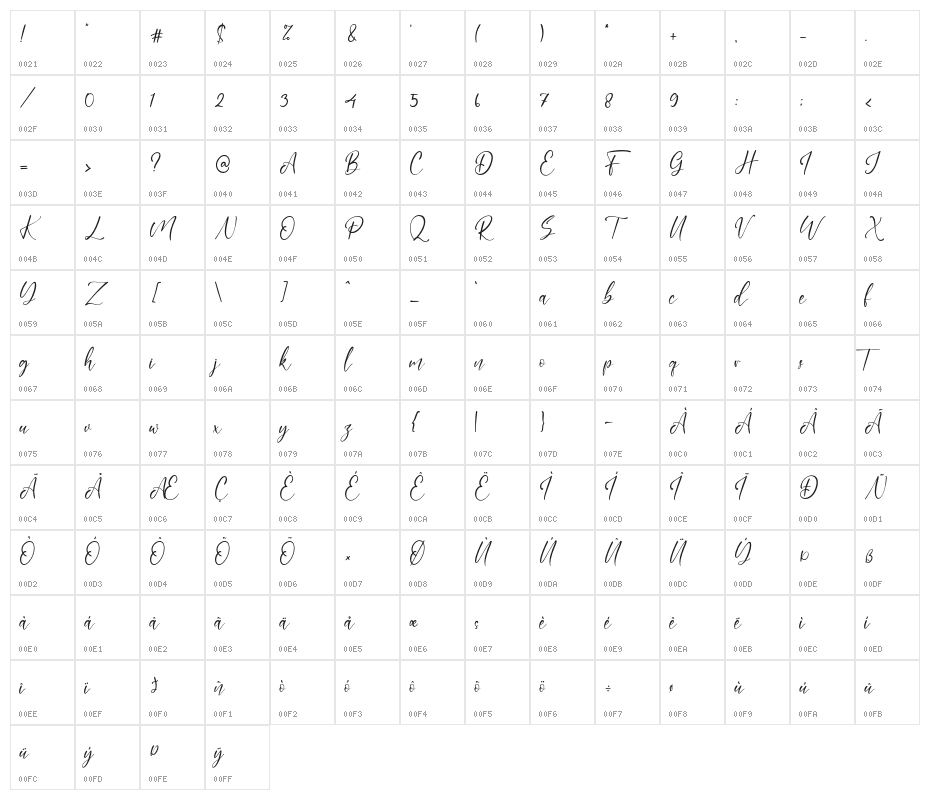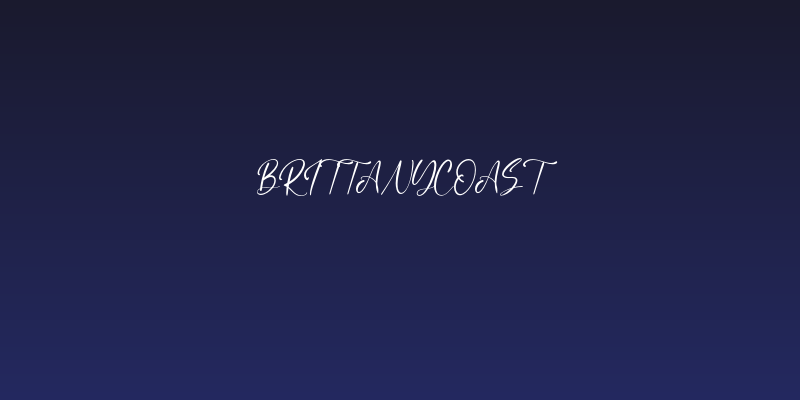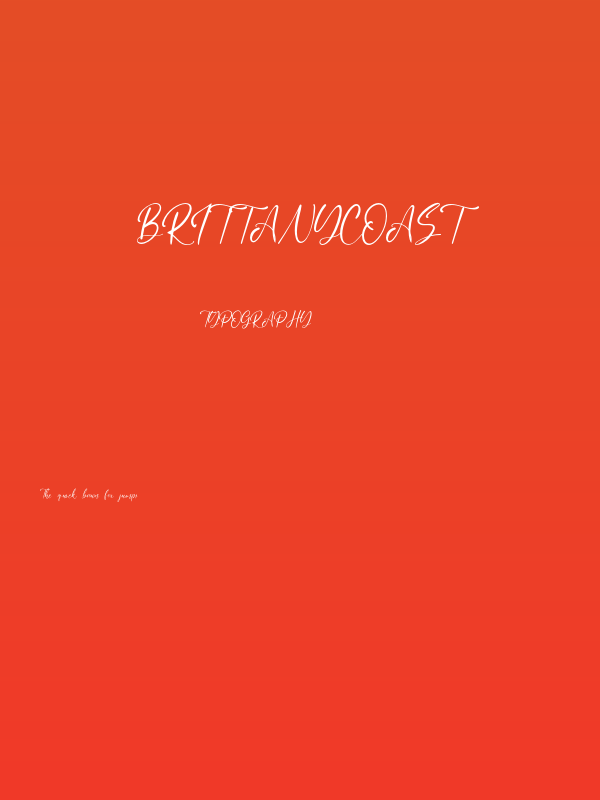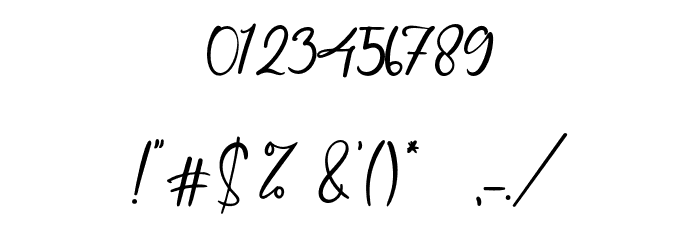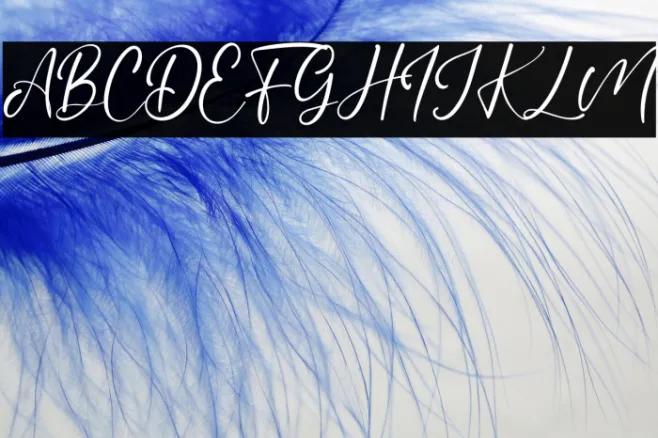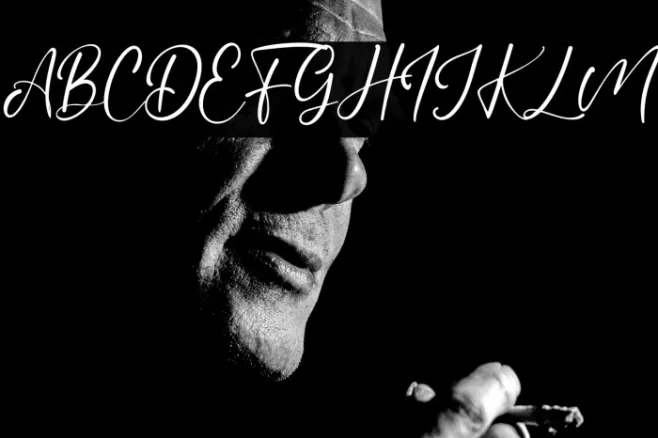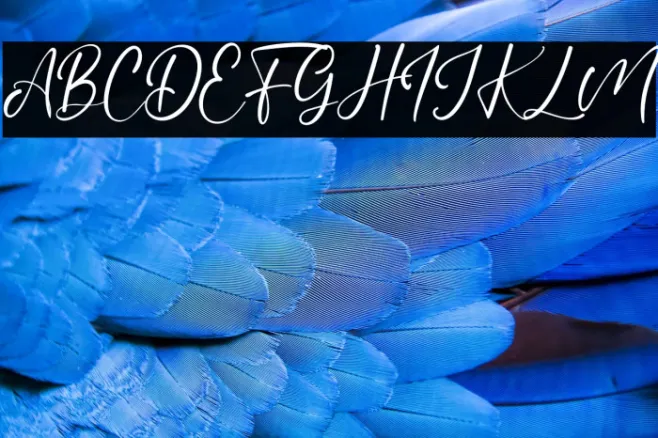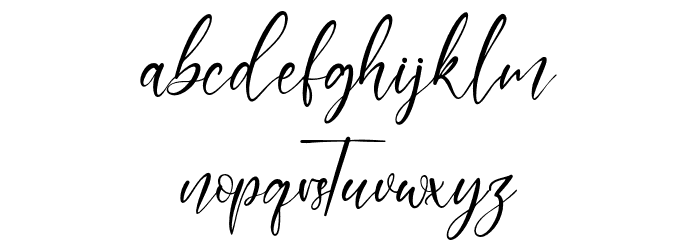
BrittanyCoast Font
BrittanyCoast Description
This elegant script font features a flowing, handwritten style with a sophisticated flair. The uppercase letters are characterized by sweeping curves and loops, giving them a graceful and artistic appearance. The lowercase letters maintain a consistent fluidity, with delicate connections between characters that enhance the overall aesthetic. The numerals are stylishly crafted, complementing the letters with their own unique charm. Special characters are thoughtfully designed to blend seamlessly with the rest of the font, making it versatile for various design needs. The font's overall look is both modern and timeless, suitable for projects that require a touch of elegance and personality.
| Overall Style | Elegant, Modern |
| Proposed Projects | Ideal for wedding invitations, branding, greeting cards, and elegant logo designs. |